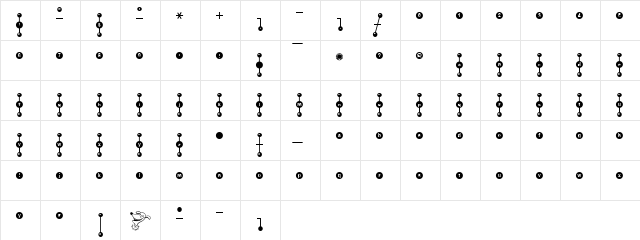
khole Regular
Design Context for khole Typeface
khole is a composed and adaptable typeface that performs quietly and consistently across a wide range of design contexts.